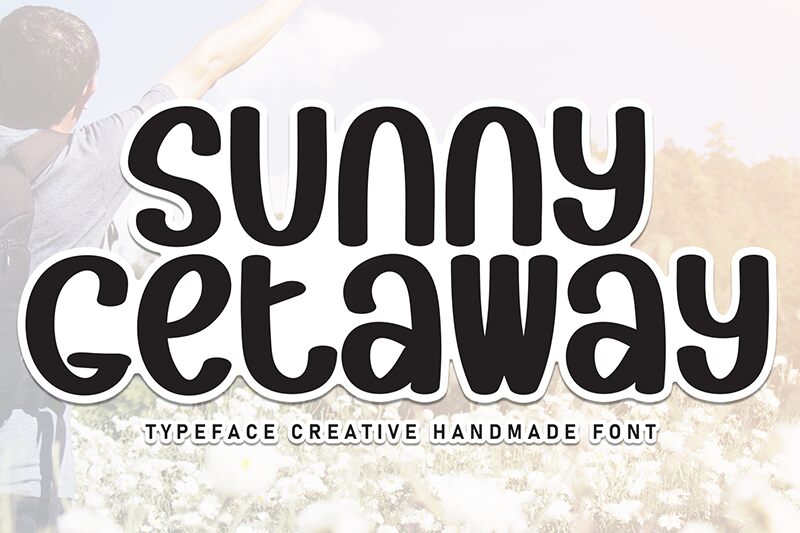
Sunny Getaway
Sunny Getaway font by Andi Moz is a free handwritten font inspired by the nostalgic vibes of the 1970s. Retro, whimsical, and friendly, this typeface has a casual feel that instantly makes any design more intimate and relatable. Featuring rounded forms and soft lines, it is certain to make any typography project more fun.
Use it on T-shirt designs, badges, logos, posters that advertise concerts or wild night events. This font can also shine in flyers for summer parties near the pool or at the beach as well as children’s books. The outline style can also be used in tattoo designs!